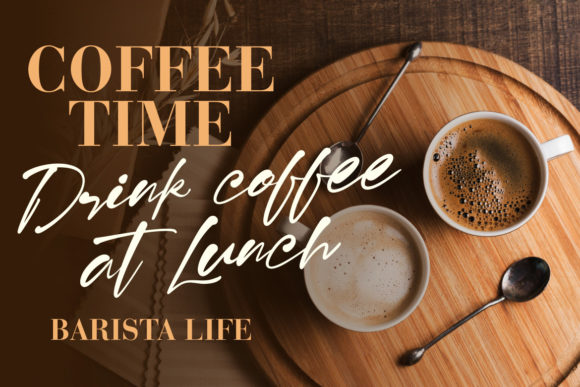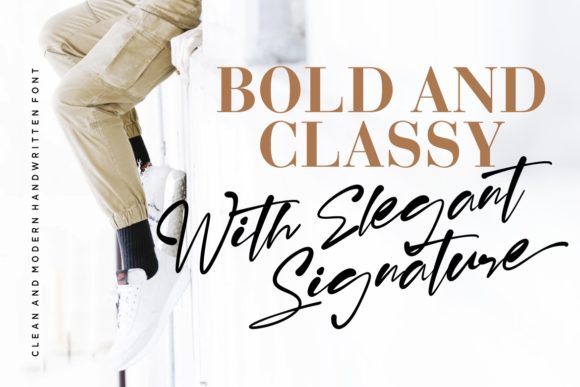
Risolla Calisto Font
db-ku.com - Script & Handwritten -- Risolla Calisto is charming and dynamic, but also elegant. This versatile script font has a wide range of applications ranging from headlines to branding and is guaranteed to add a magical touch to your next design.